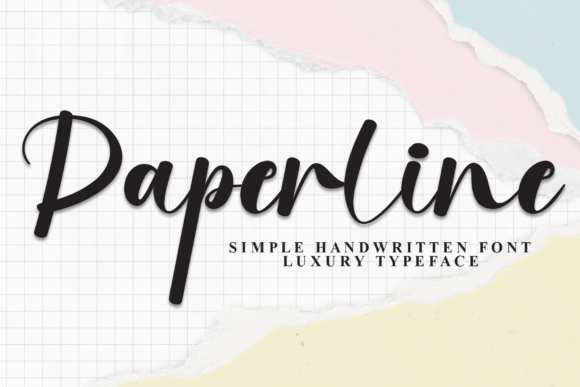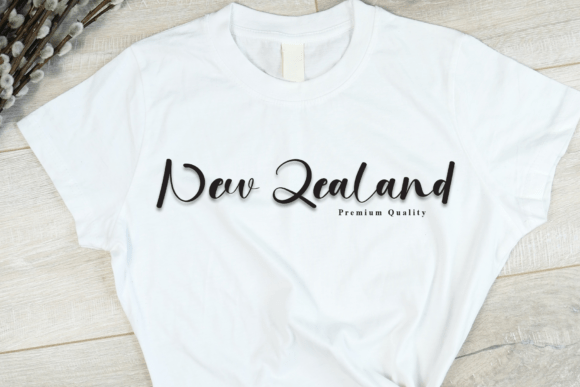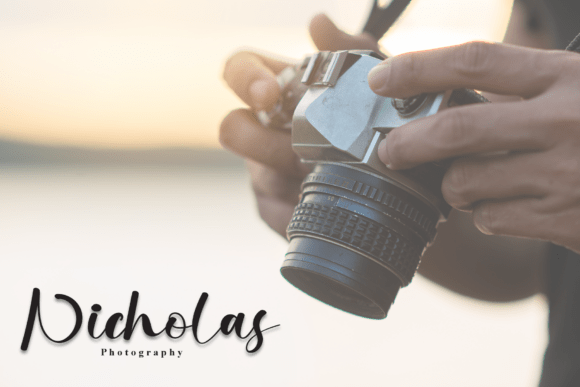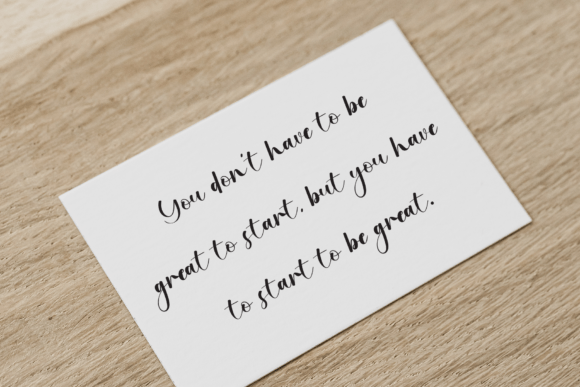
Paperline Font
About the Paperline Font
Introducing the Paperline Font, a beautifully crafted typeface designed to elevate your creative projects. A confident script calligraphy font that balances modern style with smooth readability. It’s a perfect fit for logos, product packaging, fashion branding, and editorial design with flair.
Paperline excels in headlines, short text blocks, and branding applications where a touch of elegance and confidence is desired. Its graceful curves lend themselves well to logos, invitations, and packaging for high-end products. However, its script nature makes it unsuitable for body copy or UI elements requiring high readability over extended lengths.
For optimal visual harmony, pair Paperline with a clean sans-serif like Open Sans for body text or a geometric sans-serif like Futura for a more modern feel. A subtle serif like Merriweather could also complement its refined aesthetic, providing a classic counterpoint.
Paperline projects a sophisticated and slightly modern personality, ideal for brands aiming for a premium or luxurious image. Avoid using it for projects requiring a playful or informal tone.
Paperline Font Usage Examples
Paperline Font Example